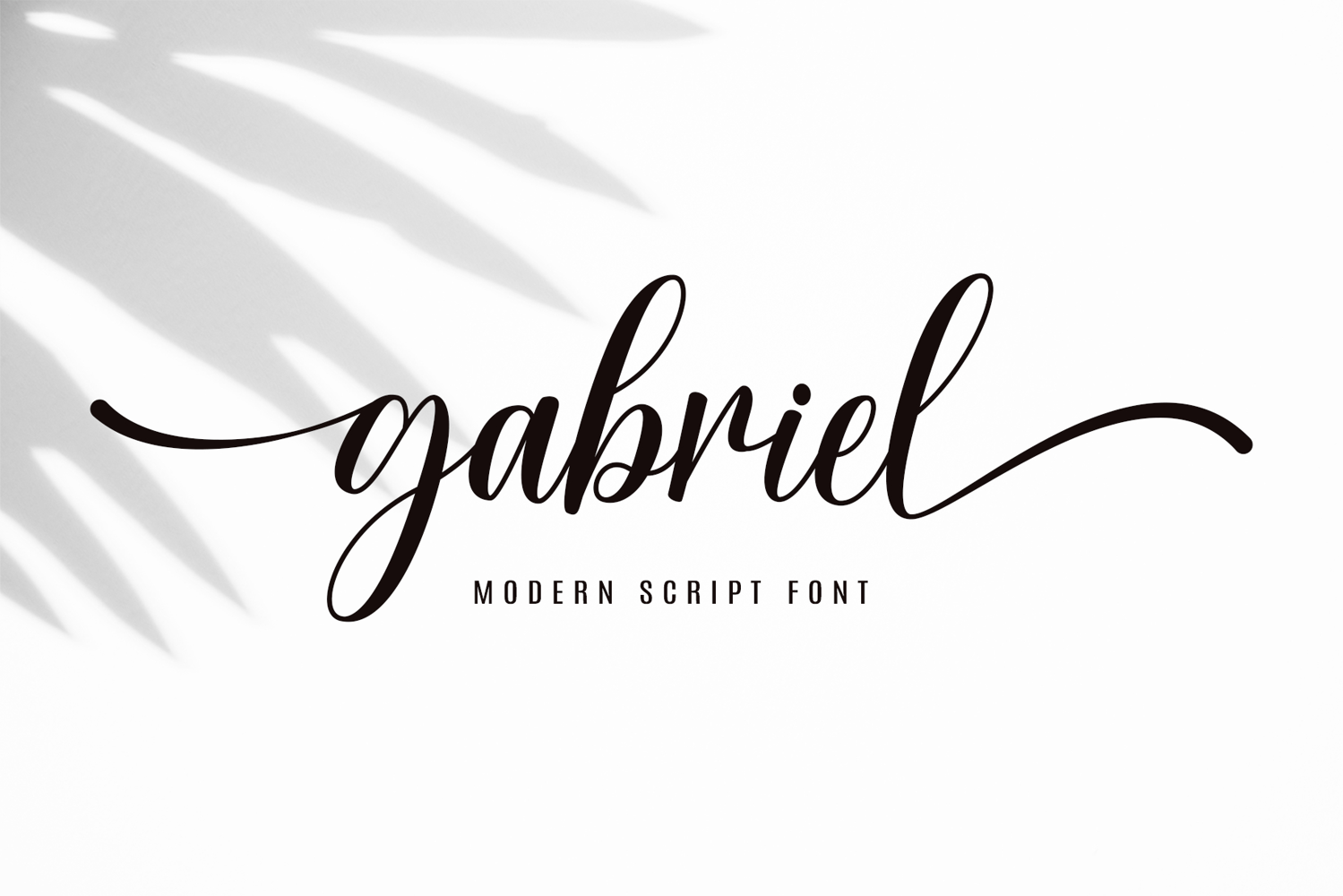
Gabriel
Prepare yourself for Gabriel, an exquisite modern script handwritten font that boasts an enchantment of its own. Each stroke delivers an extraordinary visual delight, swirling with irresistible beauty. With Gabriel, every curve unfolds a remarkable experience – a timeless elegance that imprints a memory too beautiful to forget!